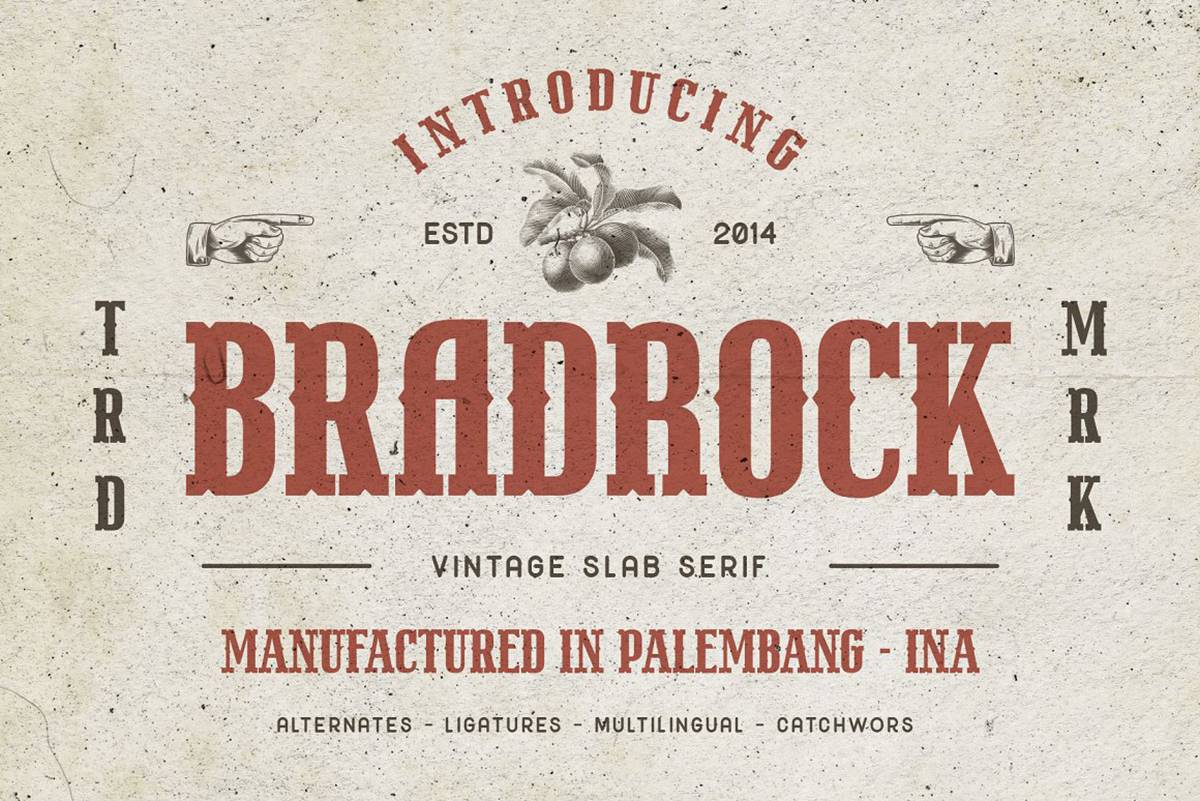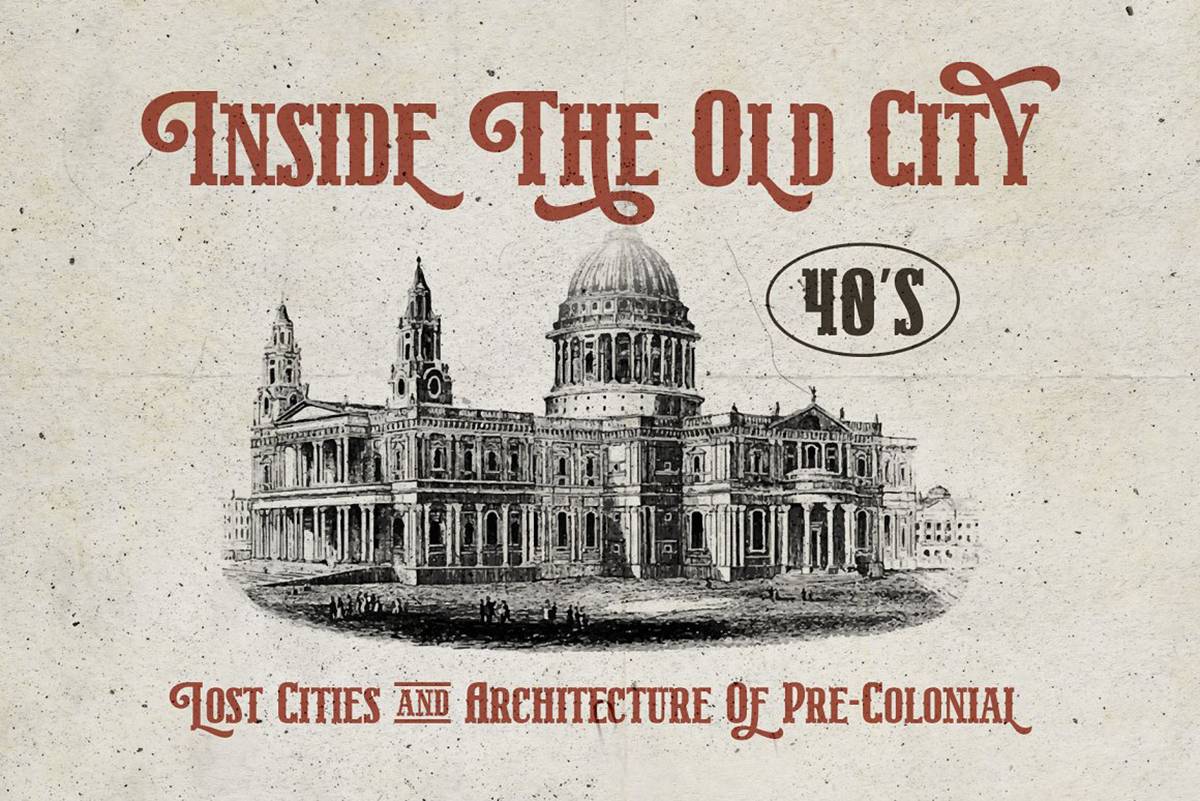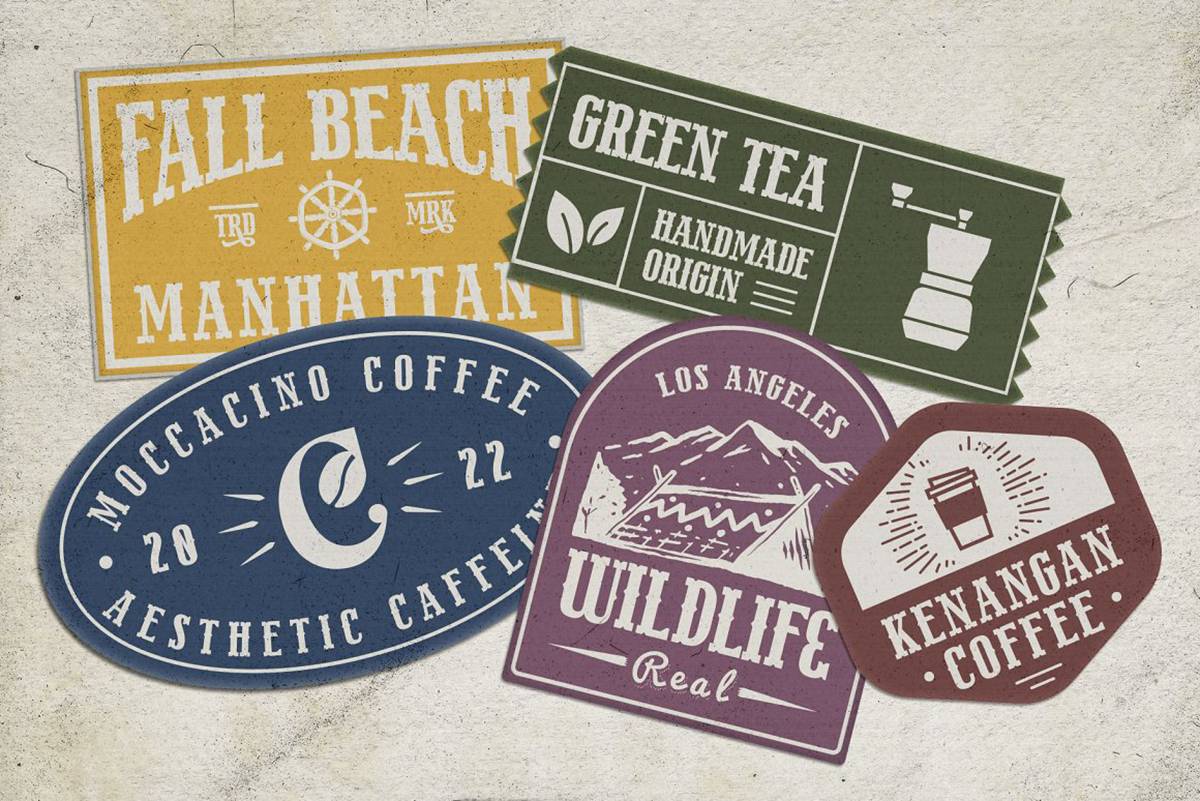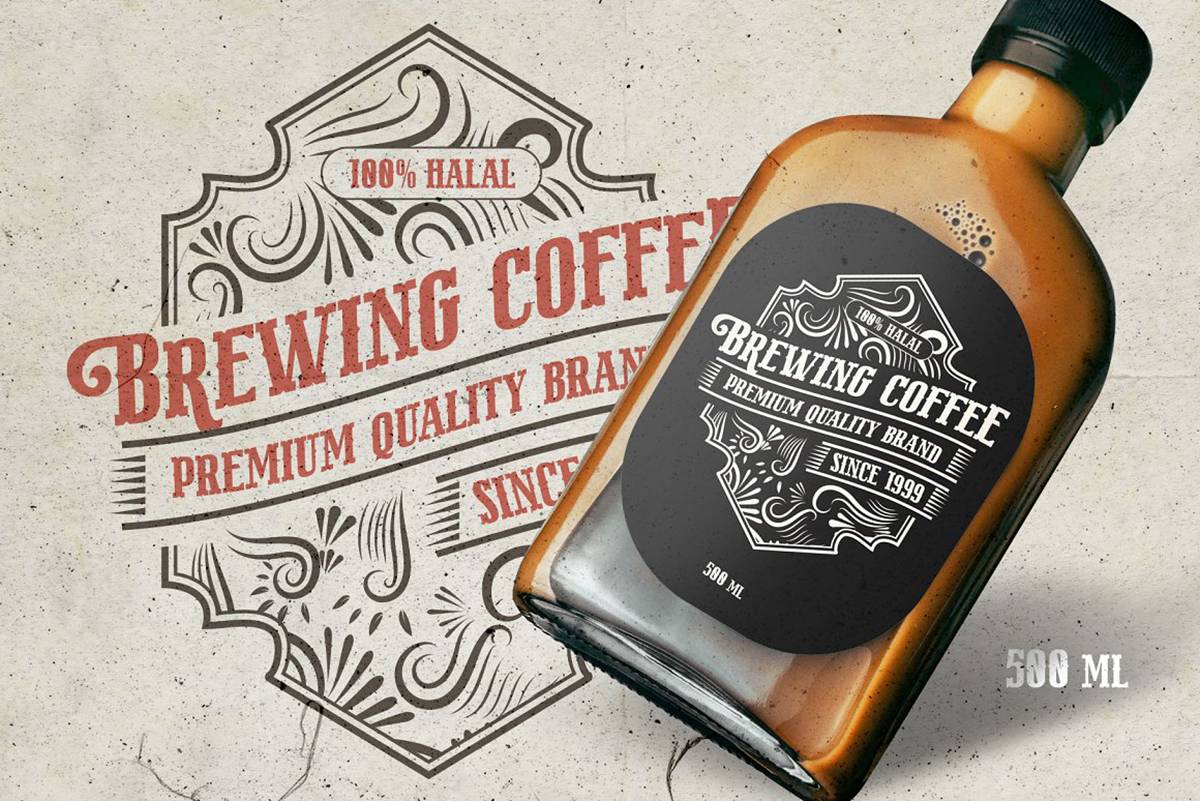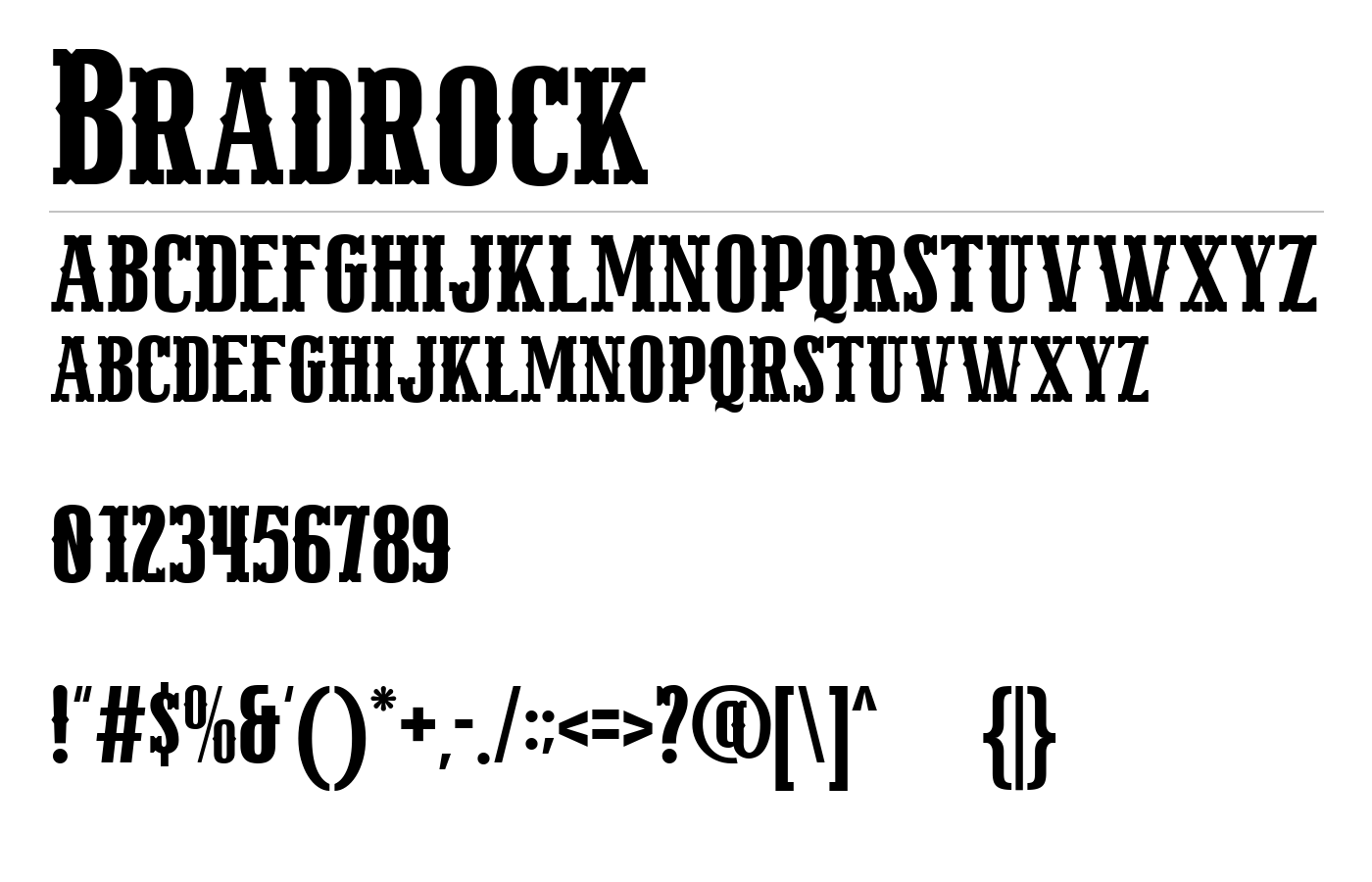
Bradrock is a bold, condensed slab serif font with strong, angular serifs and a vintage western feel. Its high contrast between thick and thin strokes and sharply bracketed serifs make it ideal for eye-catching headlines, logos, and branding that needs a rustic, rugged character. This font works well in designs aiming to evoke a sense of strength, tradition, and boldness.
Bradrock Font
About Bradrock Font
| Font family | Bradrock Font |